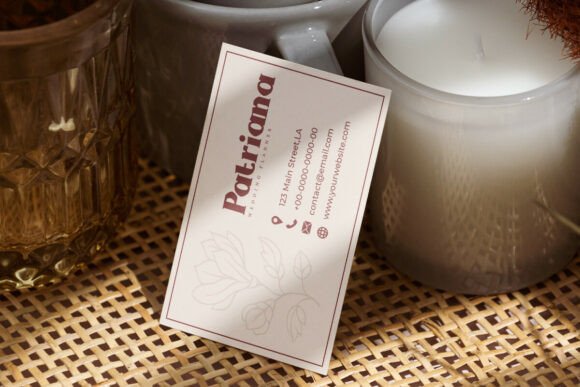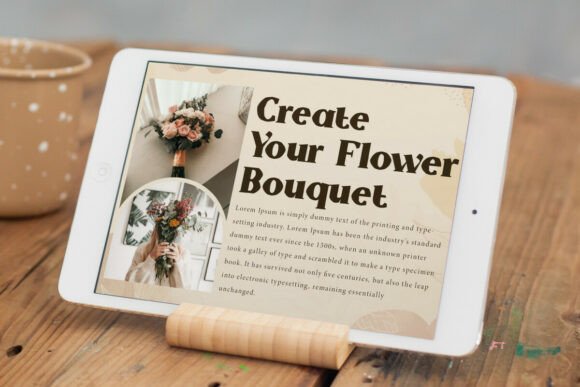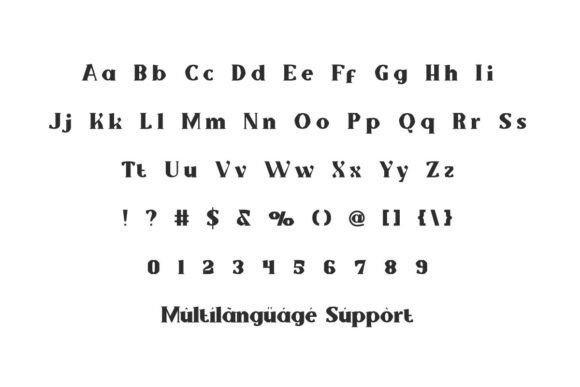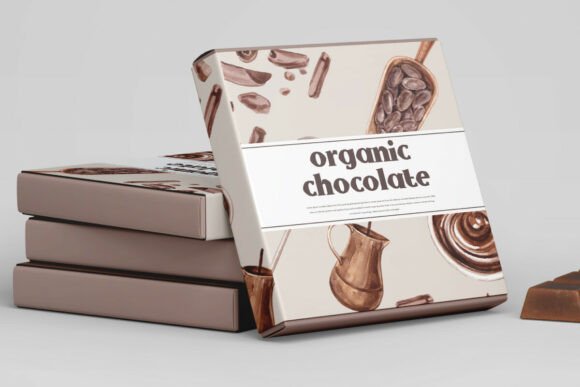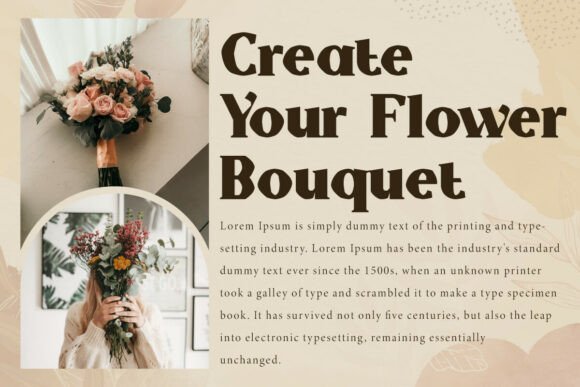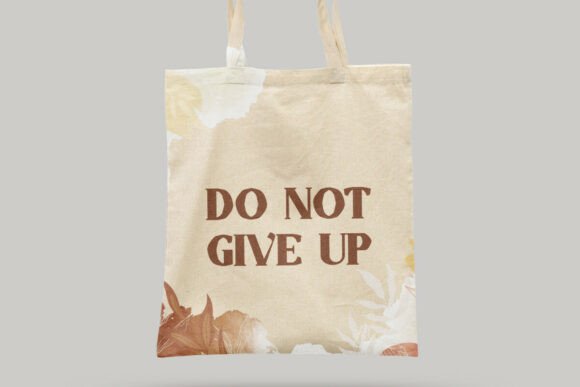
When Your Design Needs a Dose of Edginess
Have you ever been stuck in a design rut, craving a font that exudes confidence and stability? You know, the kind of font that screams ‘I’m here to stay’? I’m sure many designers can relate to this feeling. Well, we’ve got the solution for you – the Brown Today Font, a robust and ‘tough’ serif display typeface that’s about to become your new go-to.
Designed to bring a contemporary edge to classic typography, the Brown Today Font is perfect for designers looking to create a premium, modern-yet-timeless aesthetic. Its heavy weight and sharp, blocky serifs provide a sense of stability and confidence, while its modern cuts and high legibility make it suitable for a wide range of applications.
Brown Today Font Key Features
- Unique Characteristic: Brown Today features a unique, hand-drawn aesthetic with a warm, earthy tone, making it ideal for creative projects and designs that require a personal touch.
- Font Style: Brown Today is available in regular, italic, bold, and bold italic styles, providing designers with a range of options to suit their design needs.
Review of Brown Today Font
Overall, I have mixed feelings about the Brown Today Font. While it’s not bad, it’s not particularly impressive either. ✨ One thing that works well is its unique, hand-drawn feel, which gives it a personal touch. The font is perfect for creating a cozy, vintage atmosphere in designs. It’s also highly legible, making it suitable for a wide range of applications.
- ✨ Unique, hand-drawn feel
- ✨ Highly legible
- ✨ Perfect for creating a cozy, vintage atmosphere
However, there are some limitations to consider. ⚠️ One major issue is that the font lacks consistency in terms of stroke weight and style. This can make it difficult to use in complex designs, especially when combining it with other fonts. Additionally, the font’s character set is limited, which may not be suitable for projects that require a wide range of characters.
- ⚠️ Inconsistent stroke weight and style
- ⚠️ Limited character set
Overall, I would say that the Brown Today Font is a decent choice for projects that require a vintage or hand-drawn feel. However, it may not be the best option for more complex designs or projects that require a wide range of characters.
“Brown Today Font” is ideal for:
- Creating a rustic or vintage-inspired design.
- Adding a warm and earthy tone to your text.
- Designing for outdoor or nature-themed projects.
Alternatives to Brown Today Font for Designers
Playfair Display is a high-end serif font ideal for luxury branding and high-end publications. It’s characterized by its elegant and ornate details, making it perfect for creating a sense of sophistication and refinement.
Comparison to Brown Today Font: While Brown Today Font has a more casual and friendly tone, Playfair Display is more formal and luxurious. Use Playfair Display when you want to convey a sense of high-end quality and sophistication.
Montserrat is a modern sans-serif font designed for urban environments. It’s clean, simple, and highly legible, making it perfect for digital interfaces and signage.
Comparison to Brown Today Font: Montserrat is more geometric and modern compared to Brown Today Font, which has a more organic feel. Use Montserrat when you want to create a clean and minimalist design.